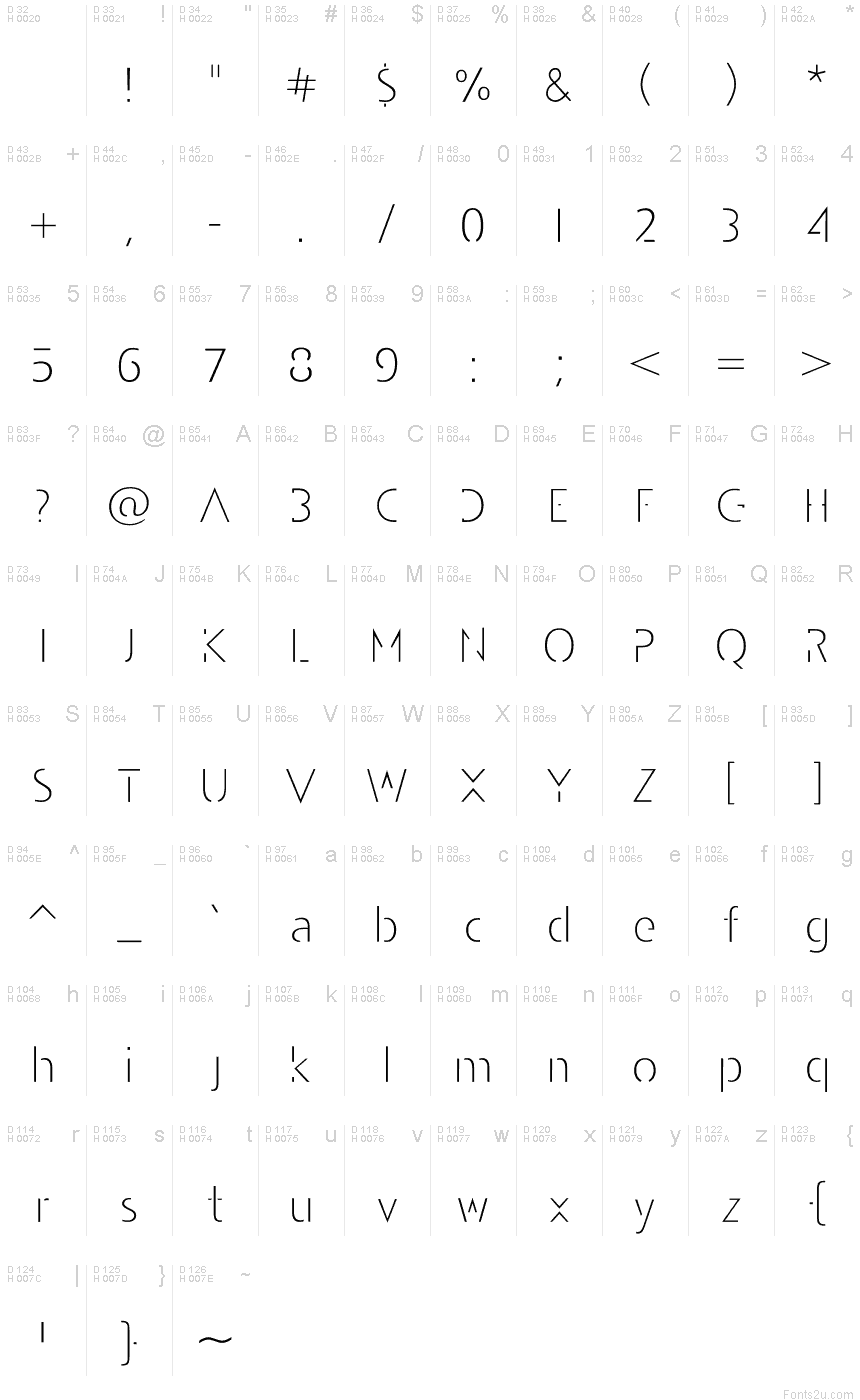
Andarilho Font is a free experimental display font with hairline strokes, tall proportions, and sharply simplified forms that often leave parts of each letter open. Its broken joins give the alphabet a wiry, futuristic profile.
Used as a stripped-back technological voice, it suits electronic music posters, fashion branding, title sequences, and cultural event graphics. Poster design is its clearest strength because the unusual silhouettes can become the central graphic idea.
This font was created by Andarilho Design.